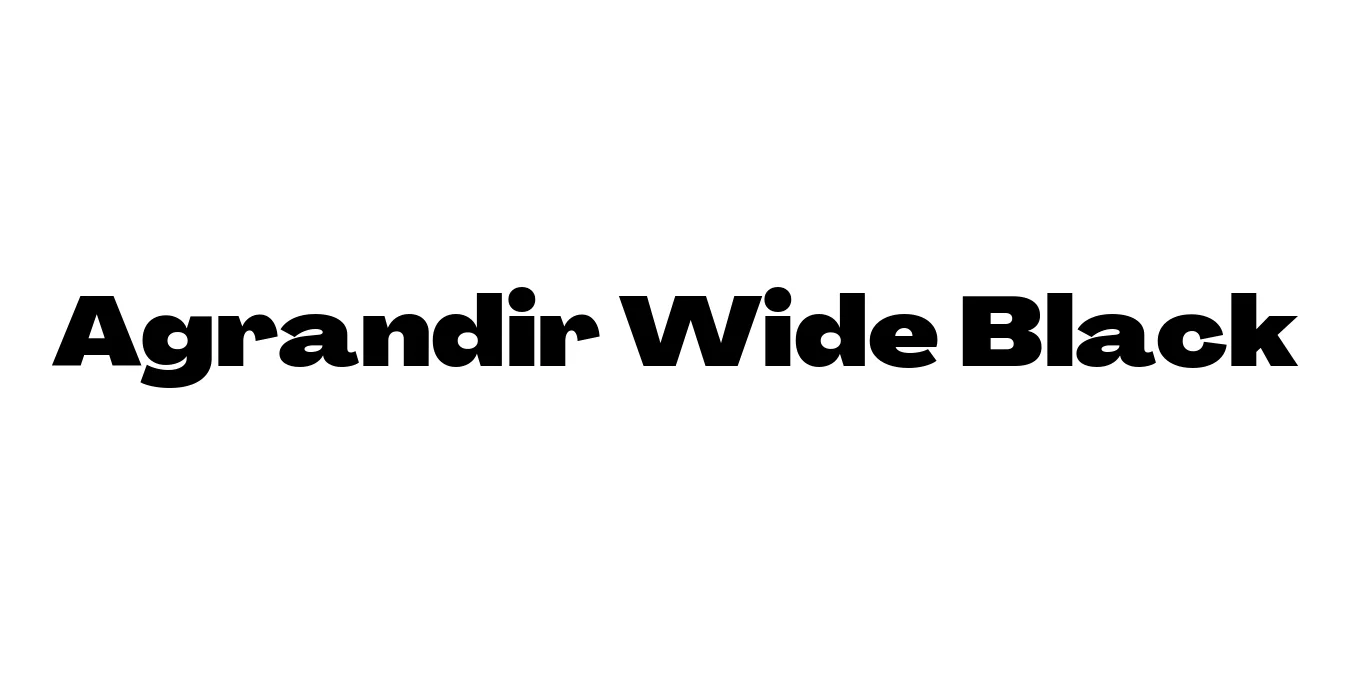
Agrandir Wide Black
Designed by Alex Slobzheninov
| Category | Sans Serif / Display |
| Designer | Alex Slobzheninov |
Agrandir Wide Black is a prominent member of the Agrandir typeface family, a contemporary sans-serif created by Alex Slobzheninov in 2018. The typeface was designed as a creative reaction against the rigid perfection of traditional neo-grotesque fonts, instead embracing a more expressive, "unaligned," and humanistic aesthetic. The Wide Black variant specifically focuses on maximizing visual impact through expansive horizontal proportions and a heavy, authoritative stroke weight.
Constructed with a geometric foundation, the font features unique quirks and intentional irregularities that give it a distinct digital-native personality. It is highly favored in modern graphic design for its ability to remain legible while making a loud stylistic statement. Because of its bold footprint and high contrast with white space, it has become a go-to choice for designers working in fashion, technology, and luxury branding who require a font that feels both avant-garde and professional.
Agrandir Wide Black Best Uses
Perfect for massive, attention-grabbing titles in magazines and hero sections of websites.
Ideal for creating strong, minimalist, and modern brand identities.
Highly effective for punchy, high-contrast Instagram graphics and digital ads.
Excellent for large-scale print projects where bold communication is required.